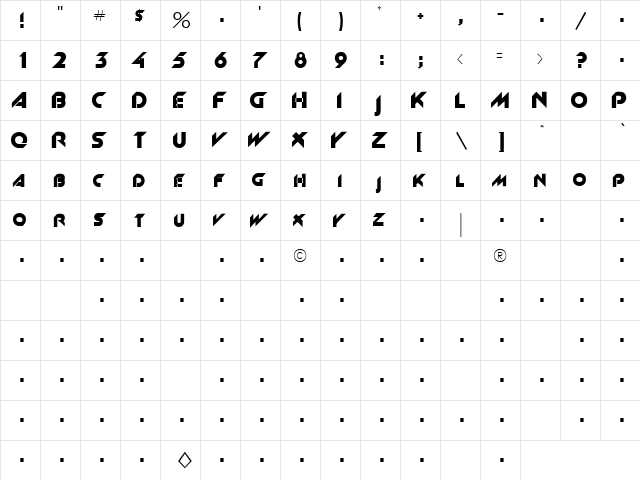
Space 3 Regular
Design Context for Space 3 Typeface
Space 3 is a composed and adaptable typeface that performs quietly and consistently across a wide range of design contexts.